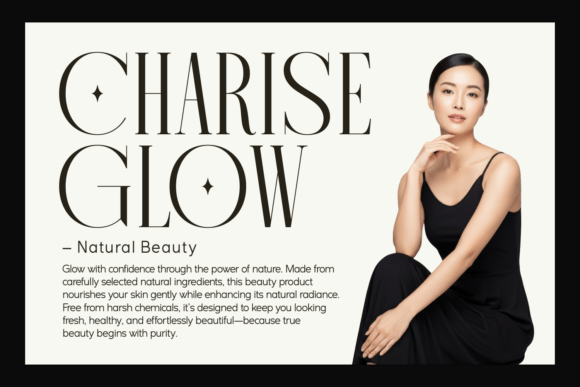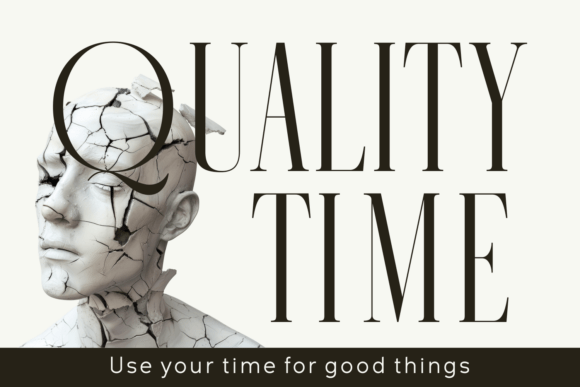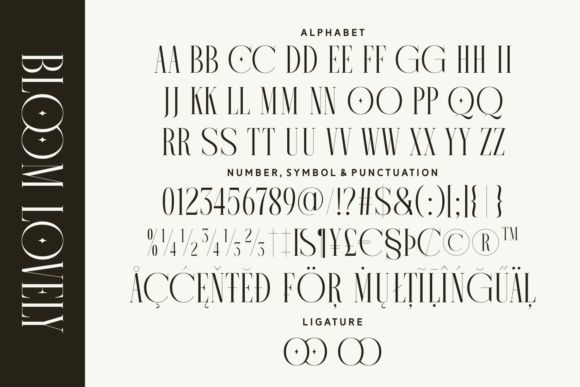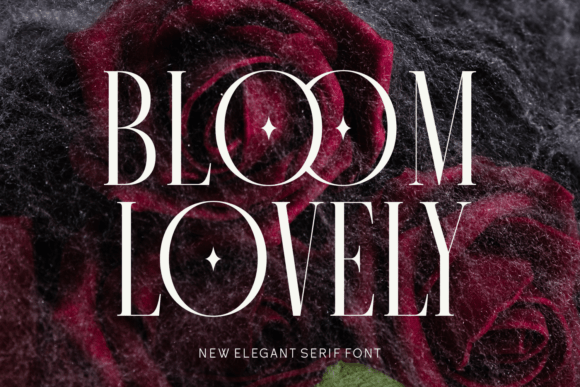
Bloom Lovely Font: Elevate Your Designs with Elegance and Sophistication
In the world of typography, a font can make or break the aesthetic of a design project. For those seeking to infuse their creations with luxury, sophistication, and a touch of timeless elegance, the Bloom Lovely Font is an exceptional choice. This strikingly elegant serif font, with its tall, graceful letterforms and refined details, is designed to elevate any creative project to new heights of beauty and class.
The Essence of Bloom Lovely Font
Bloom Lovely is not just a font; it’s an experience. Its sophisticated style is enhanced by unique diamond-shaped accents, which set it apart from more traditional serif fonts. These distinctive touches add a modern twist to the classic elegance of serif typography, making Bloom Lovely perfect for luxury branding, high-fashion editorials, wedding invitations, and upscale packaging.
Key Features of Bloom Lovely Font
- Elegant Serif Design: Bloom Lovely boasts tall, graceful letterforms that exude sophistication and refinement.
- Unique Diamond-Shaped Accents: The font’s distinctive diamond-shaped accents add a touch of modernity and uniqueness to its classic serif design.
- Luxury and Versatility: Designed for a variety of applications, Bloom Lovely is versatile enough to be used in luxury branding, high-fashion editorials, wedding invitations, and upscale packaging.
- Timeless Appeal: With its blend of modern and classic elements, Bloom Lovely has a timeless quality that ensures your designs will remain stylish for years to come.
Applications of Bloom Lovely Font
The versatility of Bloom Lovely Font makes it suitable for a wide range of design applications. Here are some of the most notable uses:
Luxury Branding
In the realm of luxury branding, first impressions are crucial. Bloom Lovely Font, with its elegant and sophisticated design, is perfect for creating brand identities that convey exclusivity, quality, and refinement. Whether it’s for a high-end fashion label, a luxury automobile brand, or a premium beverage company, Bloom Lovely can help establish a brand’s presence in the market with style and poise.
High-Fashion Editorials
Fashion editorials require fonts that are not only stylish but also capable of conveying the essence of the brand or theme. Bloom Lovely, with its unique diamond-shaped accents and elegant letterforms, is well-suited for high-fashion editorials, adding a touch of glamour and sophistication to any layout.
Wedding Invitations
For wedding invitations and other ceremonial announcements, Bloom Lovely offers a level of elegance and class that is hard to match. Its refined details and graceful letterforms make it perfect for conveying the significance and joy of the occasion, setting the tone for a memorable event.
Upscale Packaging
In the world of upscale packaging, the font used can significantly impact the perceived value of the product. Bloom Lovely Font, with its luxurious and sophisticated design, is ideal for packaging that needs to stand out on the shelves, whether it’s for premium cosmetics, fine wines, or gourmet foods.
Why Choose Bloom Lovely Font?
Choosing Bloom Lovely Font for your design projects comes with numerous benefits. Not only does it offer a unique blend of elegance and modernity, but it also provides:
- High Readability: Despite its elegant design, Bloom Lovely maintains high readability, making it suitable for both headings and body text.
- Easy to Pair: The font’s classic serif design makes it easy to pair with a variety of other fonts, offering flexibility in design.
- Support for Multiple Languages: Bloom Lovely supports multiple languages, making it a versatile choice for global brands and projects.
Bloom Lovely Font is a strikingly elegant serif font that brings a touch of luxury, sophistication, and timeless elegance to any design project. With its unique diamond-shaped accents, refined details, and versatile applications, it’s an excellent choice for designers and crafters looking to elevate their creations. Whether you’re working on luxury branding, high-fashion editorials, wedding invitations, or upscale packaging, Bloom Lovely is sure to make your designs bloom with beauty and class.